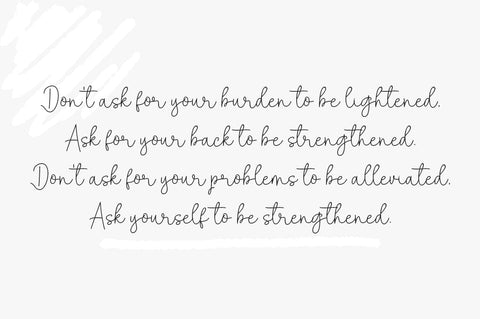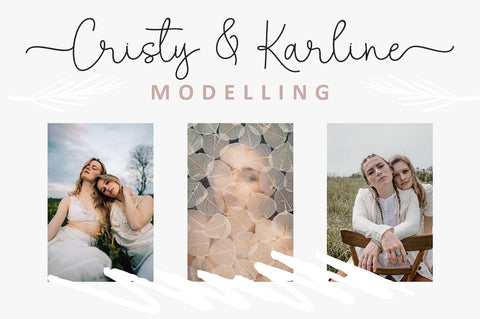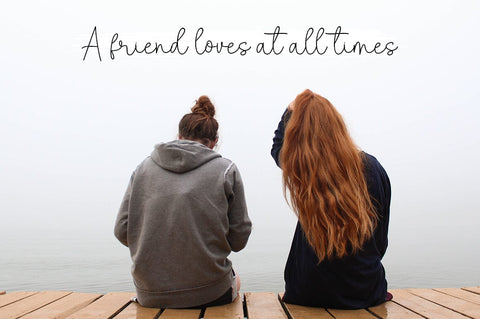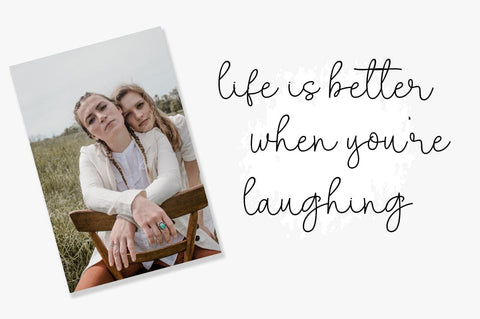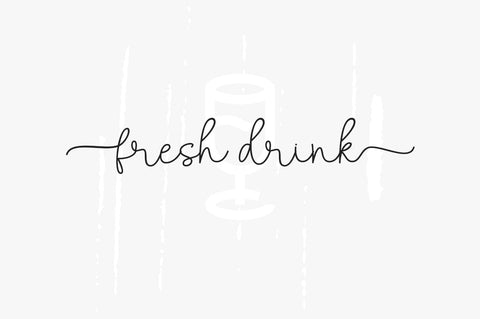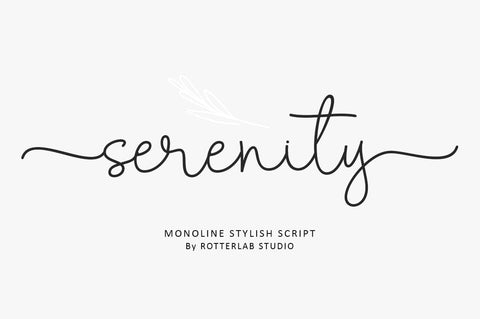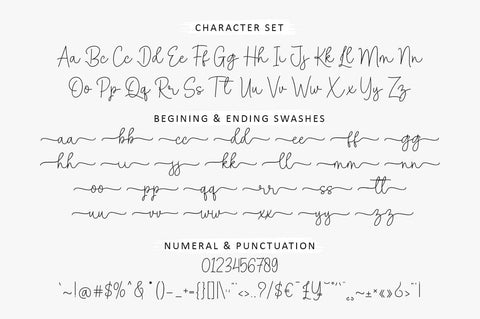
Serenity - Monoline stylish font
Serenity is simplifies elegance into one truly stunning modern script font. With its relaxed feel, Serenity is incredibly versatile and suitable for any of the design projects you may have in mind! Use it to create beautiful greeting cards, wedding invitations, logos, websites, titles and much more!
Ligatures & Alternates
Multilingual Support